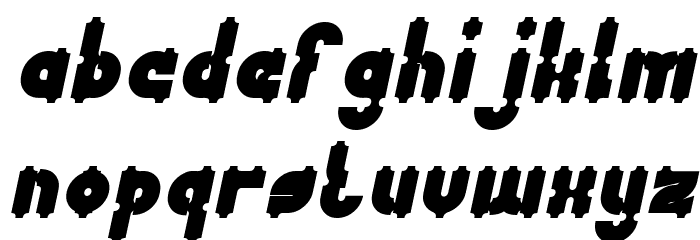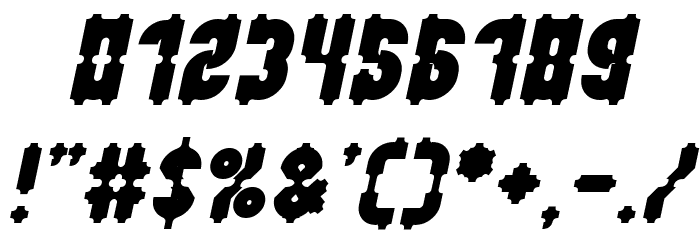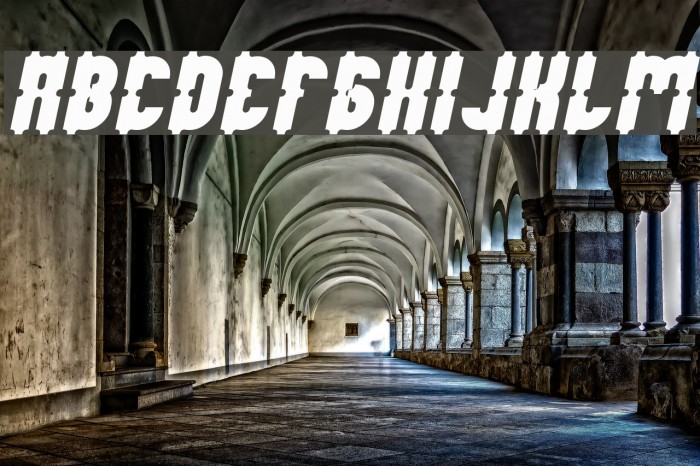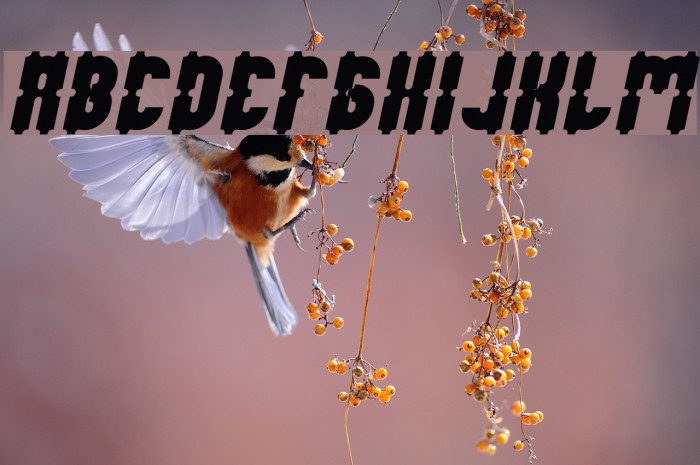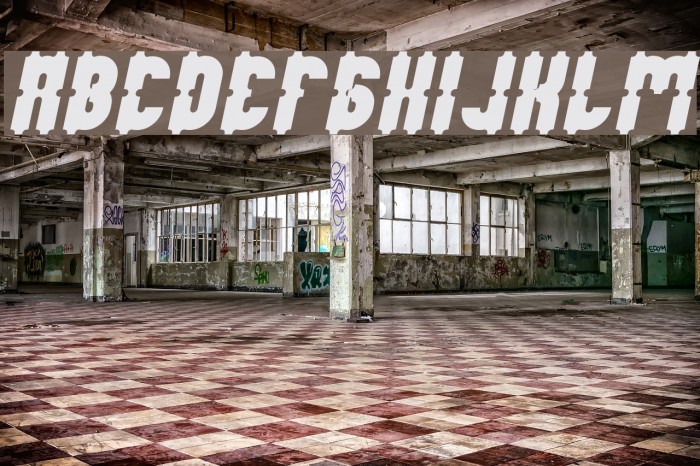
Antique Retro Bold Italic Font
This font features a bold and italicized style with a distinctly retro and antique flair. The characters are heavily stylized with thick strokes and unique cut-out details that give it a vintage appearance. The uppercase and lowercase letters maintain a consistent boldness, while the numbers and special characters follow the same design ethos. The font's overall look is reminiscent of old signage or vintage posters, making it stand out with its decorative and eye-catching design.
A bold, italicized retro font with an antique, decorative style.
- Proposed Projects: Ideal for vintage-themed posters, retro branding, signage, and decorative headlines.
- Overall Style: Vintage